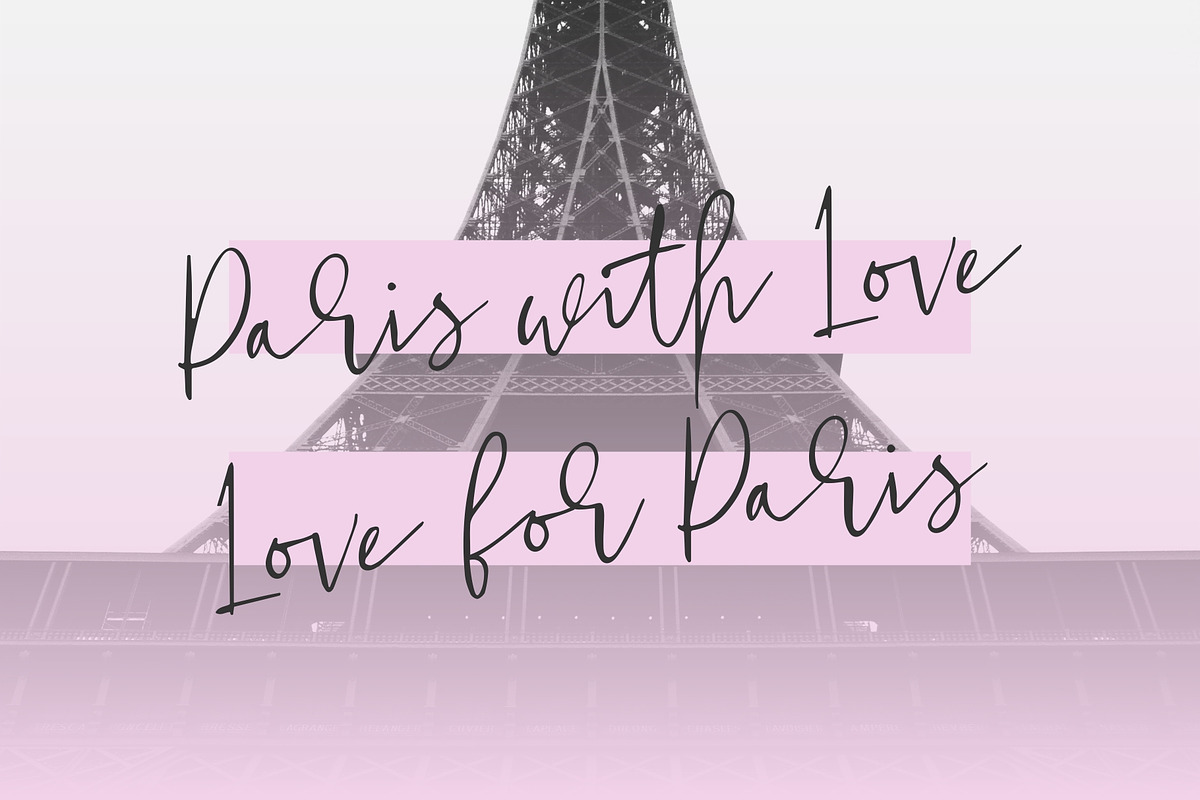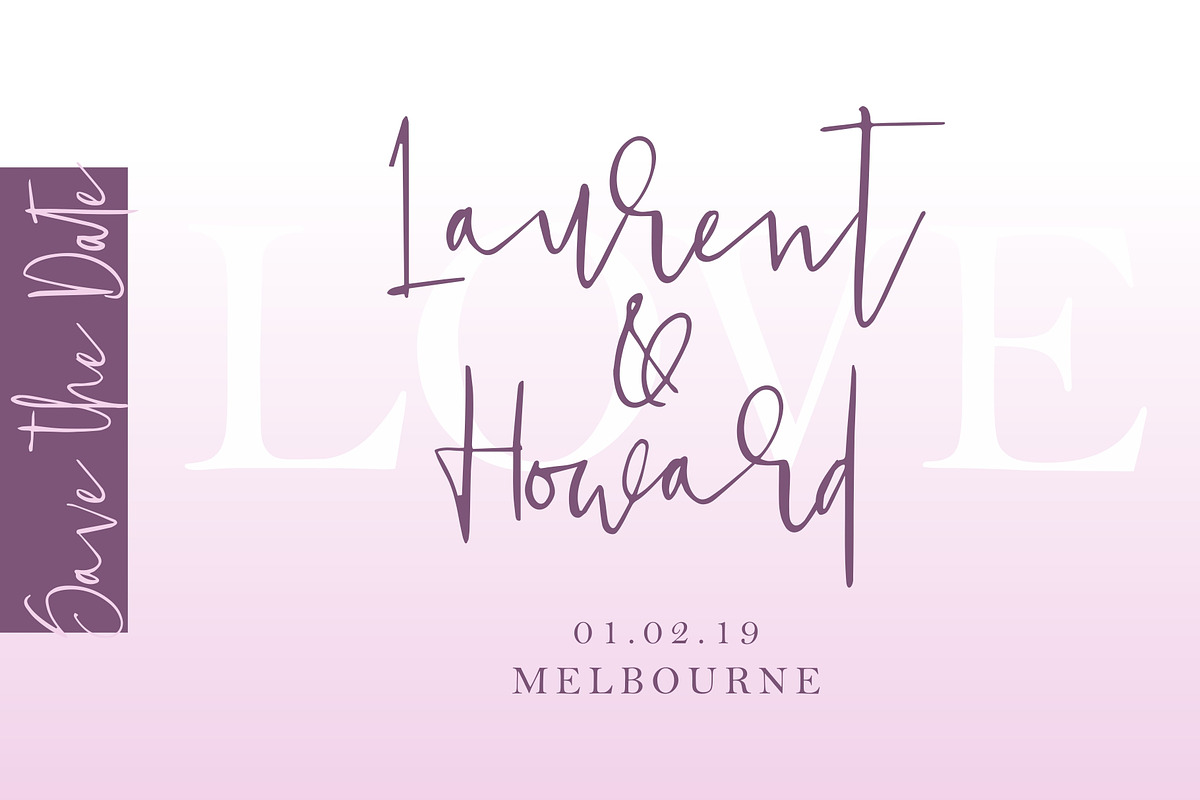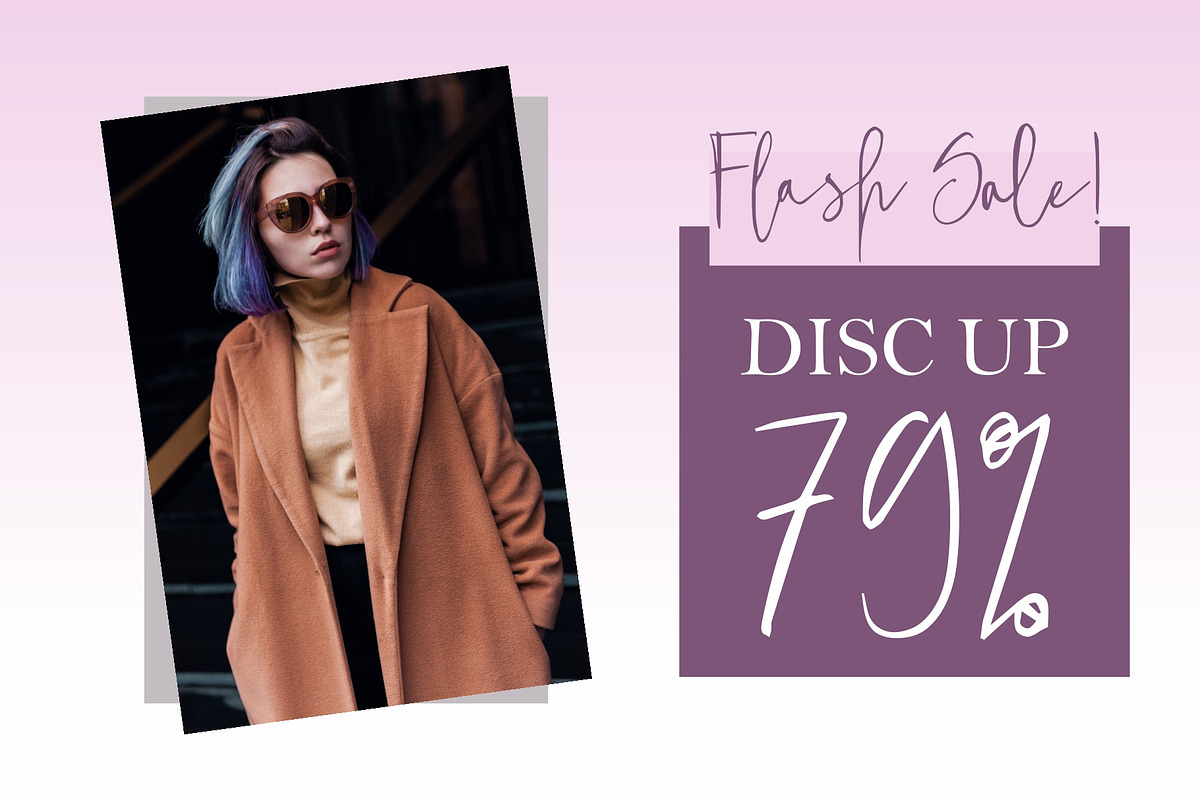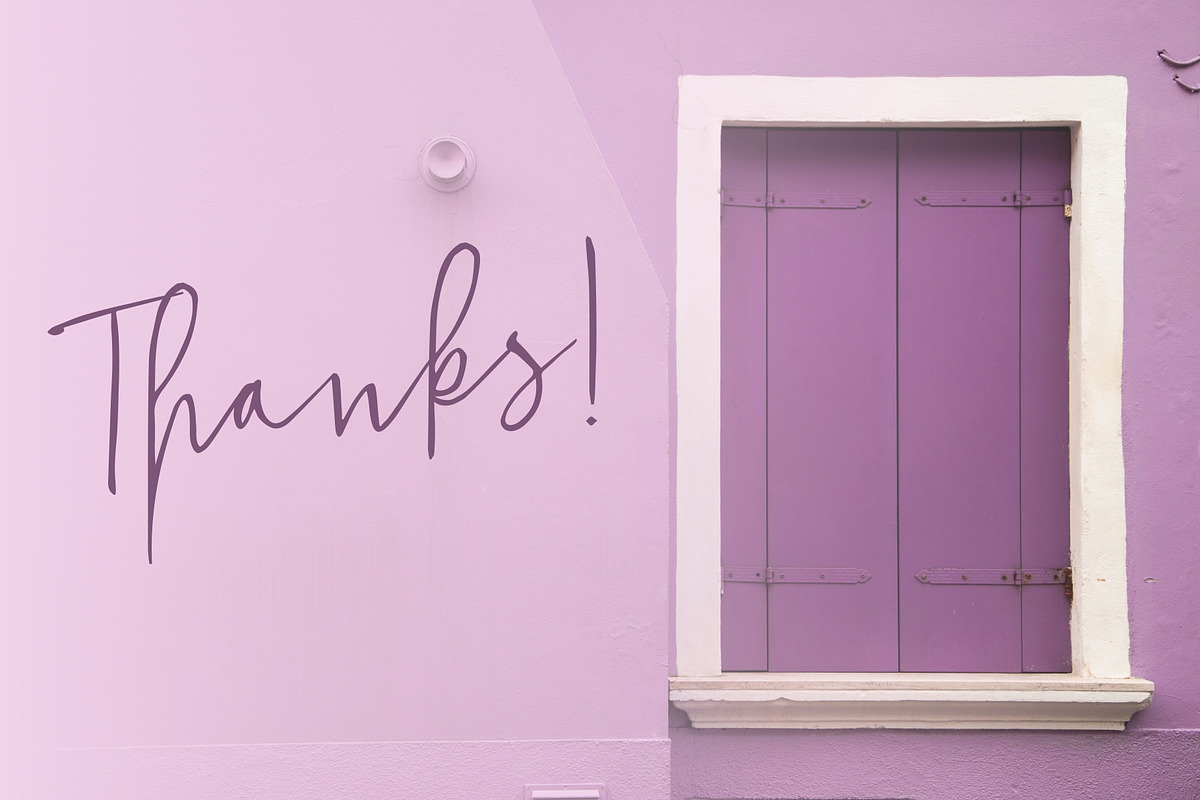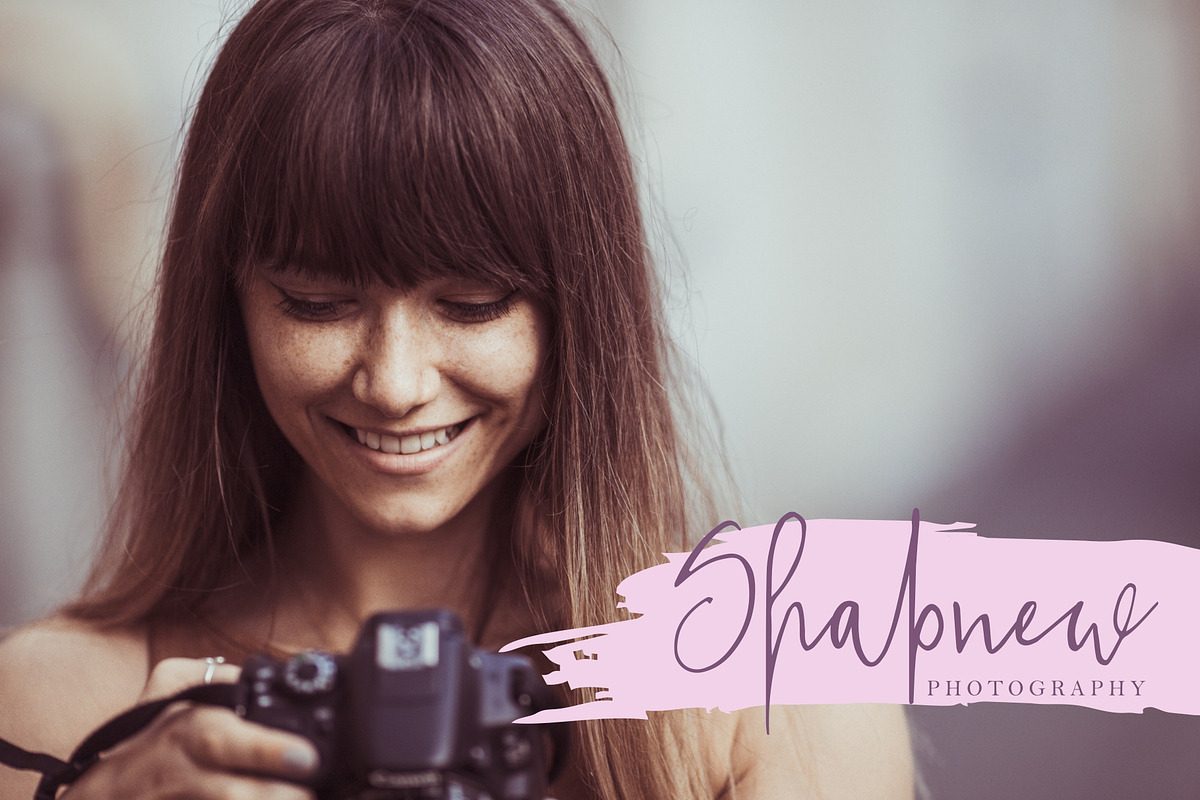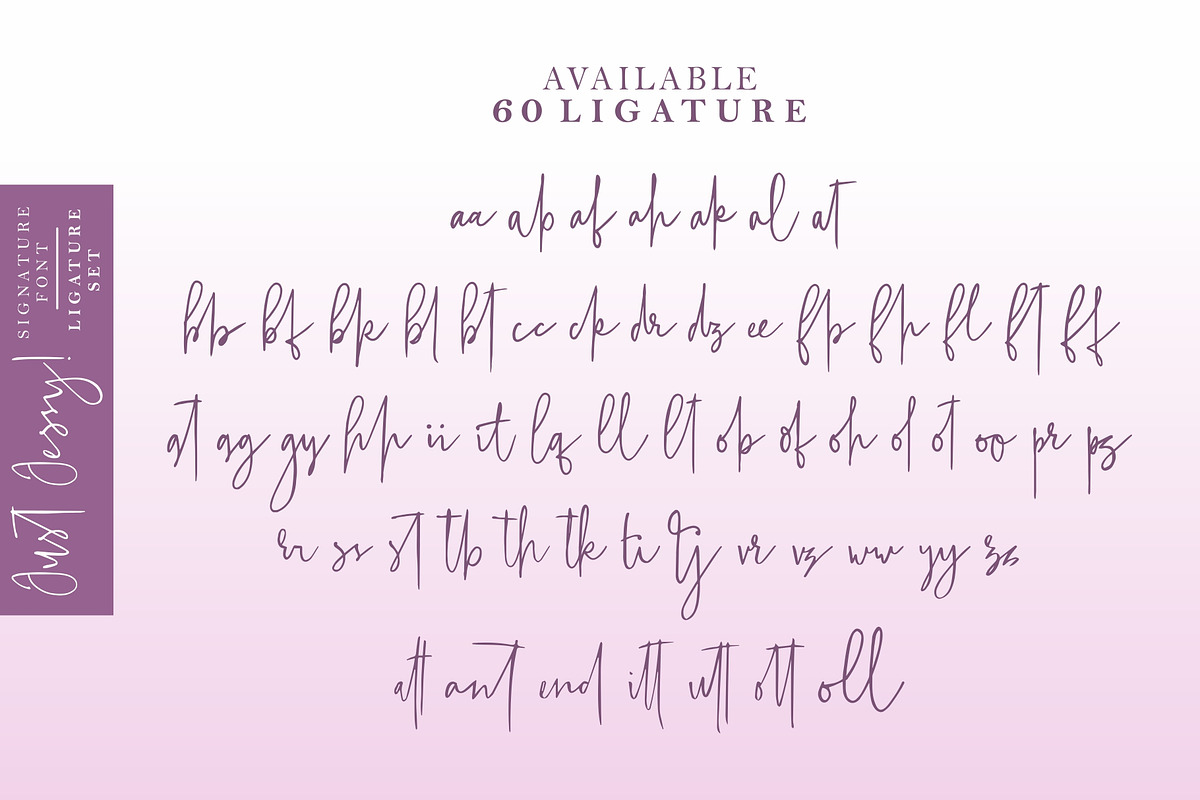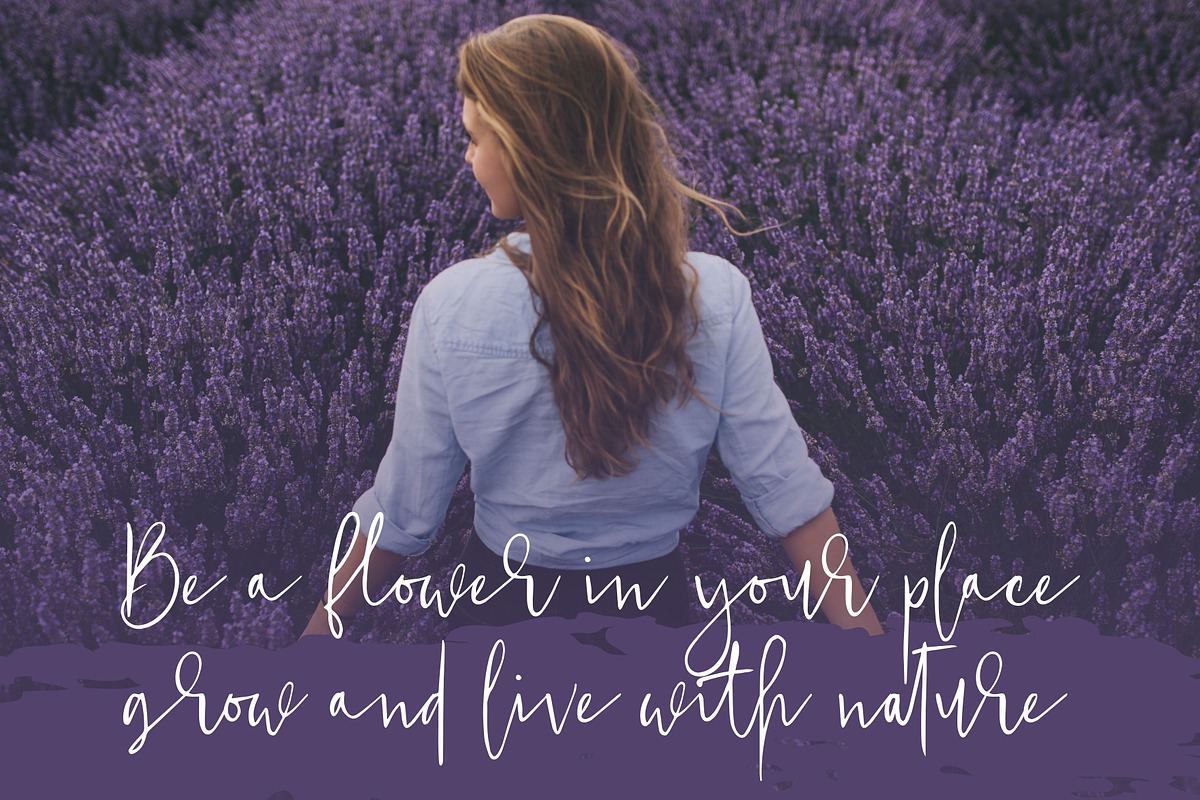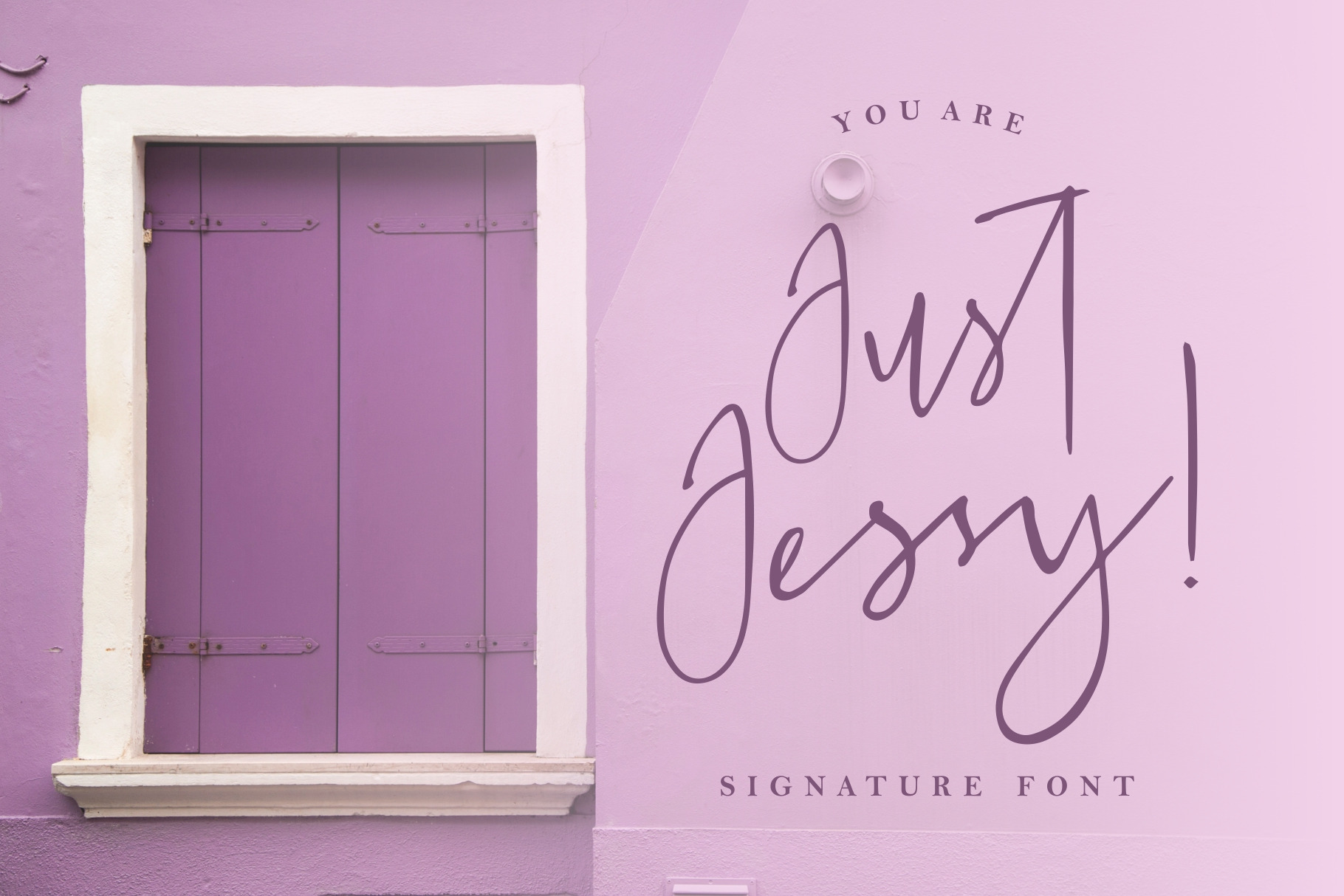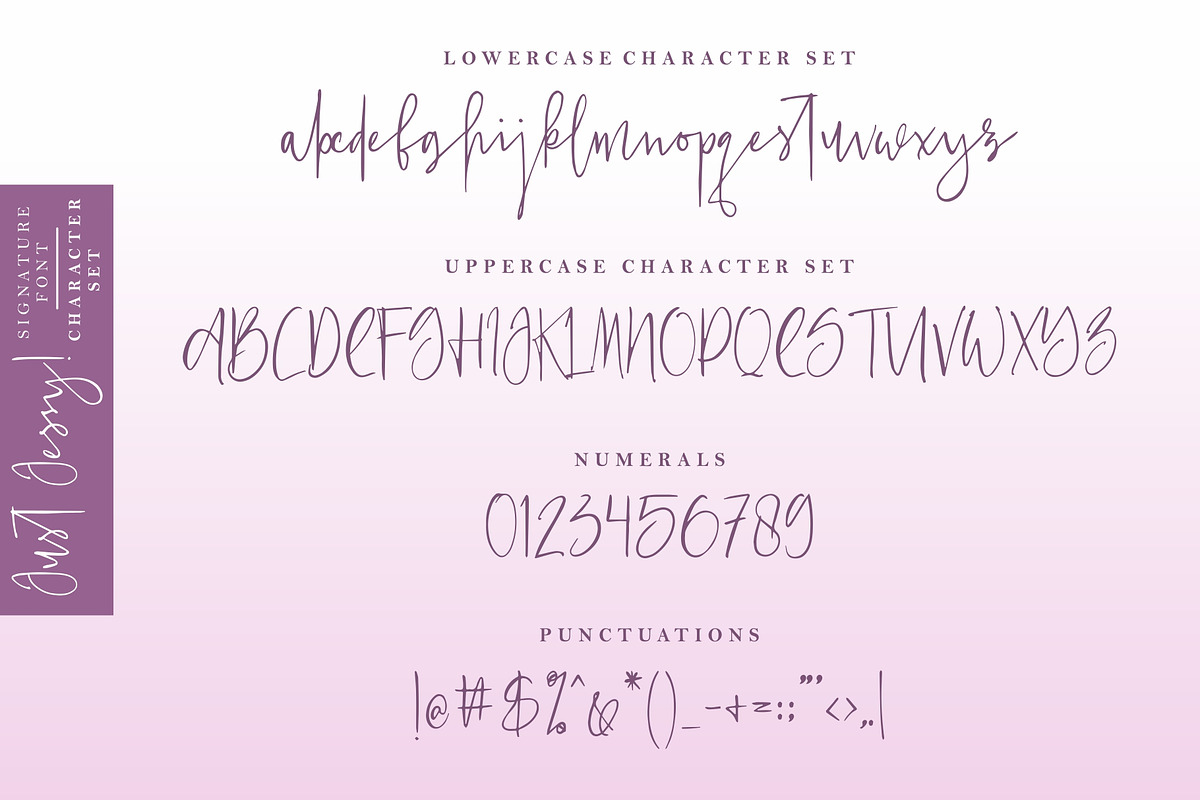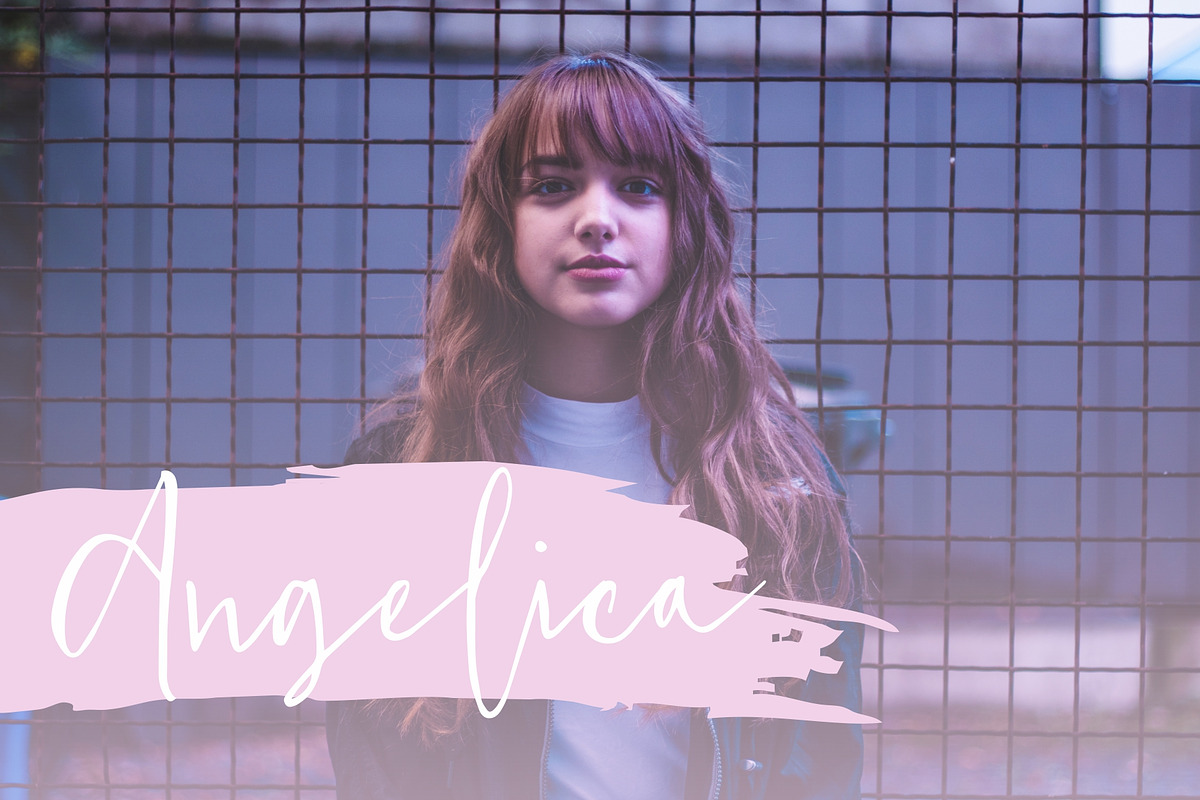
Just Jessy! [Signature Font]
Introducing JUST JESSY! - a new signature font with elegant lines that makes this font perfect for imaging your personal brand and every great project, such as logos, invitations, stationery, wedding designs, social media posts, advertisements, product packaging, product design, labels, photography, watermarks, special events, and more!
- 60 Ligature Style